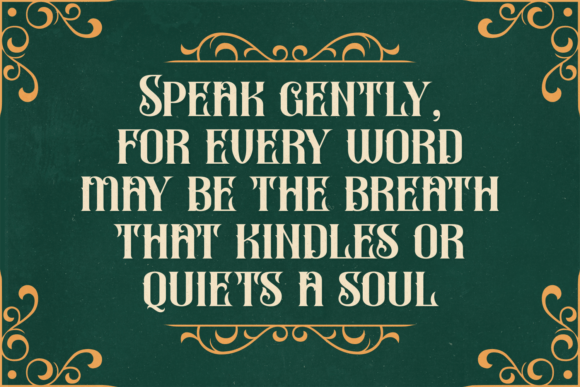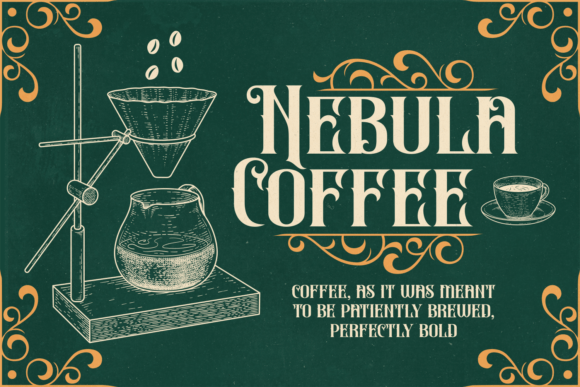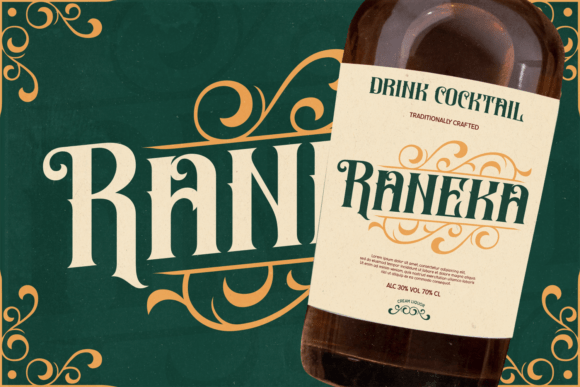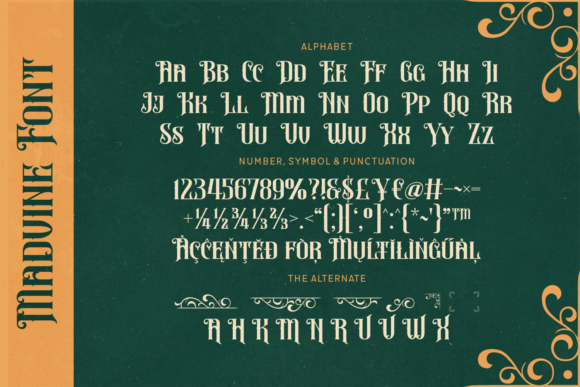
Introduction to Madvine Font
You’re browsing through a vintage market, and you stumble upon an old, intricately designed sign. The elegant script and ornate details transport you to a bygone era, sparking your creativity and inspiring your next project. This is the kind of moment that fuels designers’ passion for creating something truly unique and memorable. And, what if you could capture that essence in your design, thanks to a high-quality font like the Madvine Font?
The Madvine Font is a stunning Victorian serif typeface that exudes elegance and sophistication. Its ornate corner details and refined lines make it a perfect fit for any creative project that requires a touch of vintage charm. Whether you’re working on a branding project or designing a display for a special event, this design resource is sure to elevate your work and leave a lasting impression.
Key Features of Madvine Font
- High-quality design: The Madvine Font offers crisp and clear typography, perfect for any creative project.
- Transparent background: This font features a transparent background, allowing for easy layering and customization.
- Unique characteristics: Madvine Font features a unique blend of modern and vintage elements, making it perfect for creative projects that require a touch of elegance and sophistication.
- Perfect for creative projects: Whether you’re working on a logo, poster, or website, Madvine Font is an excellent choice for any design project.
Honest Review: Madvine Font
As a designer, I’m always on the lookout for high-quality design resources to elevate my creative projects. The Madvine Font is one such resource that caught my attention. Its unique style and versatility make it an excellent addition to any design portfolio.
- ✨ Unique aesthetic: The Madvine Font’s blend of modern and vintage elements makes it perfect for creating eye-catching designs.
- ✨ Highly legible: This font is incredibly easy to read, even at small sizes, making it ideal for body text and headings.
- ⚠️ Limited customization options: While the Madvine Font is highly versatile, it’s not as customizable as some other fonts on the market.
- ⚠️ Not suitable for all projects: The font’s unique style may not be suitable for all types of creative projects, particularly those requiring a more minimalist aesthetic.
Overall, I’m impressed with the Madvine Font. Its high quality, transparent background, and free download make it a valuable design resource. While it may have some limitations, it’s an excellent choice for designers looking to add a touch of personality to their creative projects.
For the most out of Madvine Font, use it for headings and titles in your design. It’s perfect for creating a cohesive and professional look in your creative projects. Common use cases include branding materials, brochures, and social media graphics.